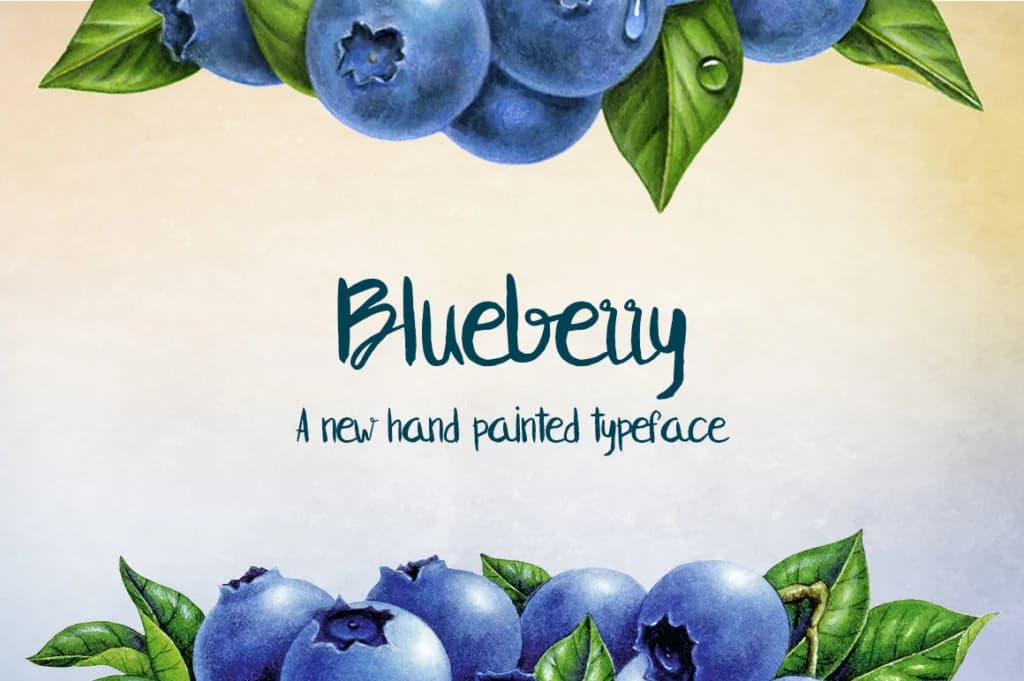
About Blueberry Font
Blueberry Font by Jokiranta is a flowing script typeface with authentic hand-lettered character that brings organic warmth to any project requiring visual personality and craft sensibility. The design captures the natural quality of carefully-penned letterforms while maintaining excellent legibility and refined execution throughout the character set. This script style works exceptionally well for projects where personal touch matters, handwritten thank-you card suites, custom wedding menu designs, artisan product labels, and boutique skincare packaging all benefit from the typeface's genuine handcrafted aesthetic. DIY crafters appreciate how the flowing letterforms translate beautifully into vinyl decal designs and heat transfer applications, while designers turn to it for branding work that calls for approachable elegance rather than corporate formality. The font's versatility extends to social media graphics, invitation designs, and editorial layouts where a personal voice enhances the message and builds authentic connection with viewers. The typeface integrates smoothly with all major design platforms and production tools, ensuring reliable results whether you're working digitally or preparing files for physical application. Blueberry Font pairs the accessible charm of hand-lettering with the consistency that modern projects demand, delivering character without sacrificing practicality. Get Blueberry Font on Creative Fabrica and bring handwritten charm to your designs.
Blueberry Font is a script font that shines as a display or heading face. Pair it with a clean sans-serif or serif font for body text β the contrast creates a clear hierarchy while the two styles stay balanced and easy to read.
Blueberry Font
by Jokiranta